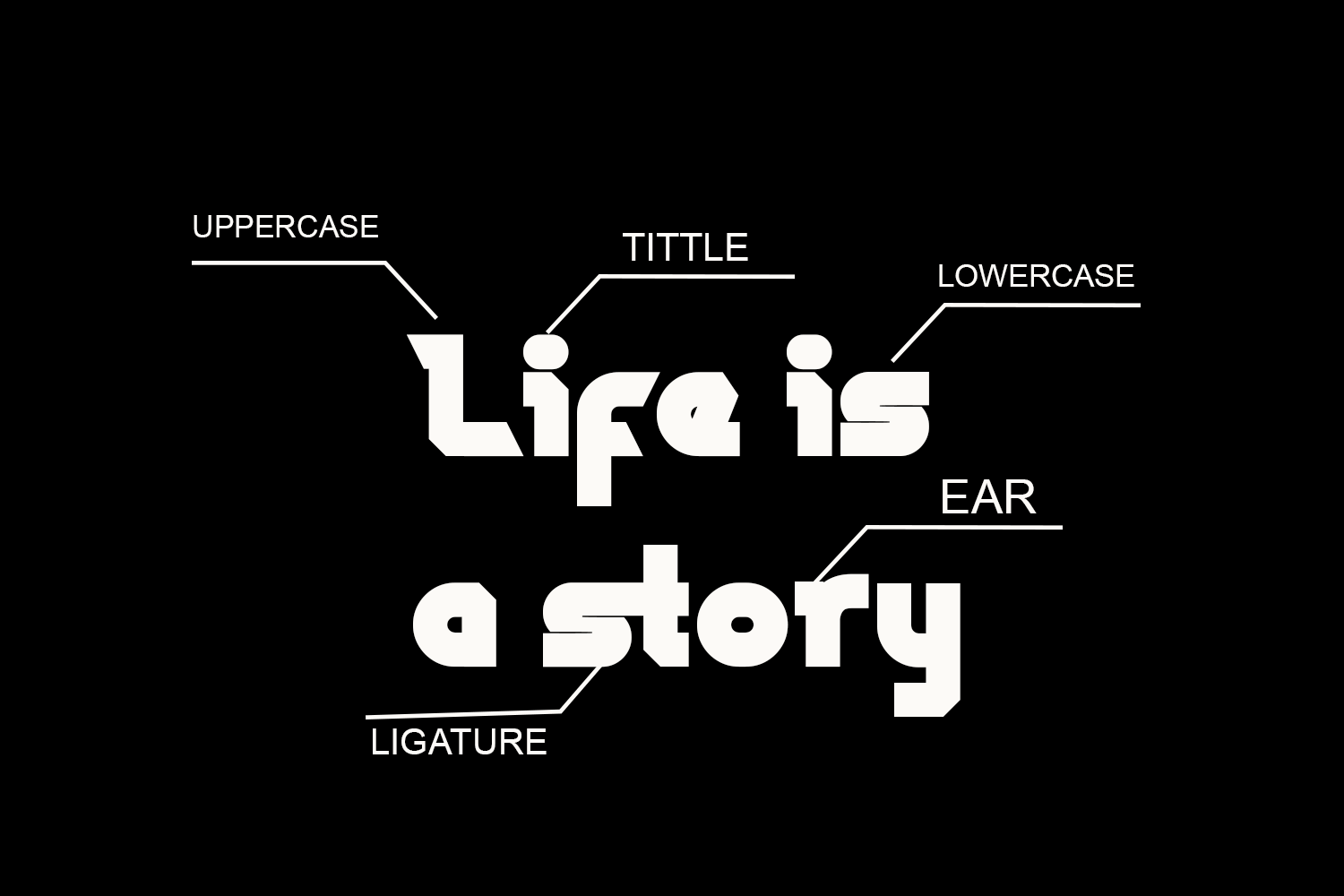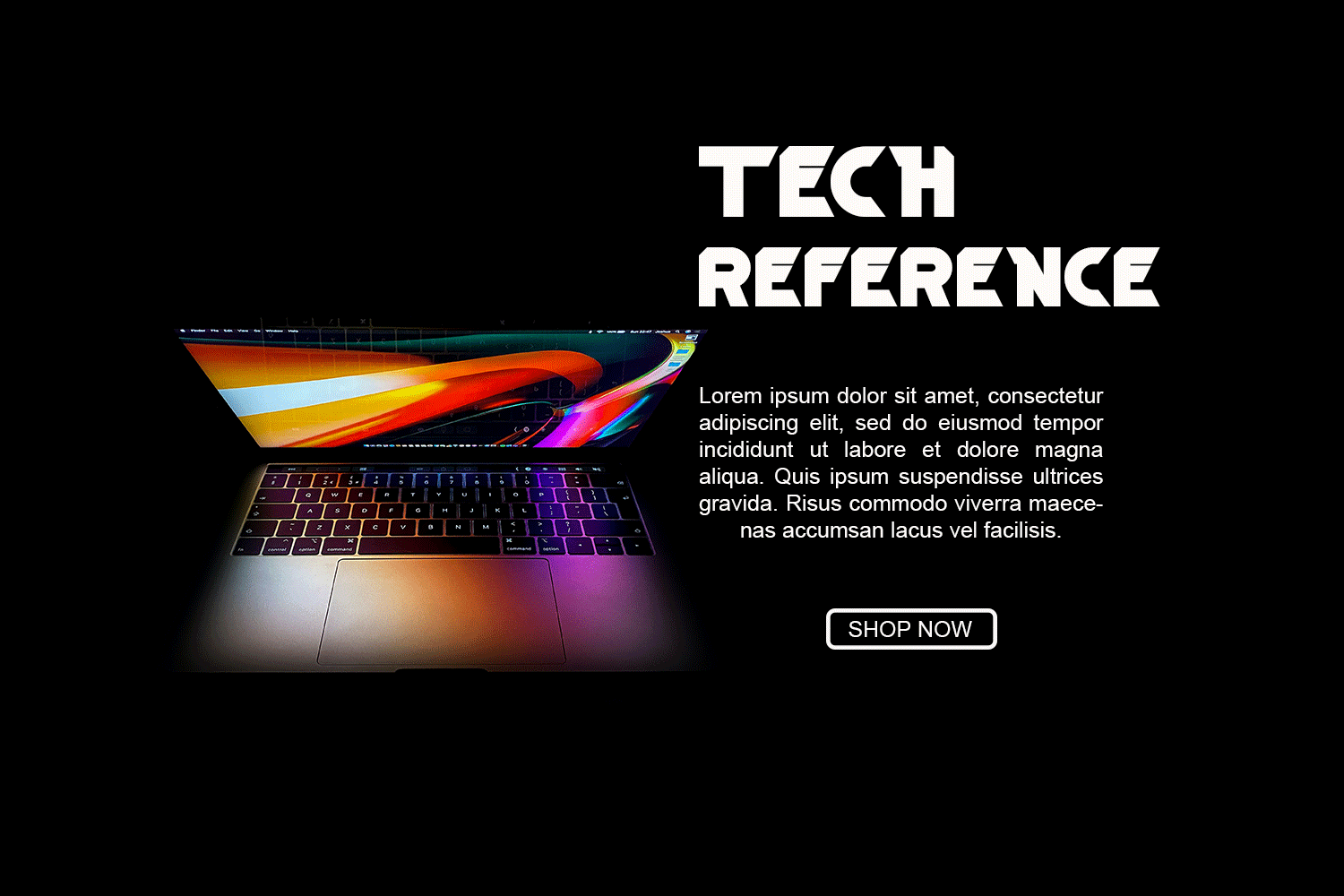
Macros Free Font
Macros Free Font presents a sleek display font with bold, thick lettering, exuding a cool and striking aesthetic. A valuable addition to your font collection, it possesses the ability to enhance any creative endeavor, regardless of the subject matter. This free typeface was designed by a talentedΒ Display Studio. If you like it don’t forget to check out the full version.